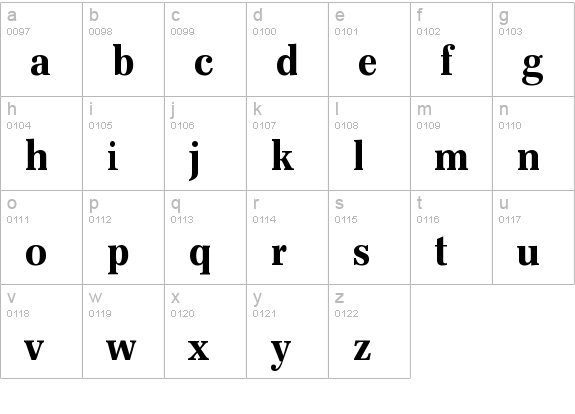
F820-Roman-Bold is a strong, high-contrast variant in the F820 typeface family \xE2\x80\x94 well suited to headlines, attention-grabbing titles, and strong calls-to-action.
F820-Roman-Bold font is a sleek and modern typeface that exudes strength and sophistication. Its bold and distinctive letterforms make a powerful statement in any design project. With its clean lines and sharp edges, this font is perfect for headlines, titles, and branding materials. The F820-Roman-Bold font is versatile and can be used in a variety of applications, from print to digital media. Best of all, this striking font is available for free download at FontsMarket.com. Whether you're a designer looking to add a bold touch to your work or a business owner searching for a unique font for your branding, F820-Roman-Bold is the perfect choice. Download it now and take your designs to the next level with this eye-catching typeface.